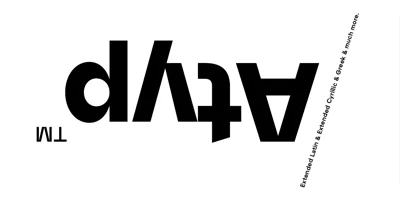
Atyp Font
Atyp Font excels in avant-garde design applications including experimental art galleries, independent music labels, creative agency branding, alternative fashion brands, underground event promotions, artistic publication layouts, innovative tech startups, non-conformist lifestyle brands, progressive cultural movements, and boundary-pushing advertising campaigns. This distinctive typeface brings artistic rebellion to unconventional projects.
What makes Atyp Font truly exciting is its deliberate departure from traditional typographic conventions with unique letterforms that challenge design expectations and create memorable visual impact. The font features intentionally irregular character shapes with artistic quirks and experimental elements that reflect creative freedom and non-conformist thinking. Its rebellious personality and artistic innovation make it perfect for brands embracing alternative culture, creative expression, and audiences who value originality over conventional design approaches.
The Atyp Font family typically includes Regular weight with potential stylistic alternates and experimental variations that enhance its unconventional character. These creative options provide designers with artistic flexibility while maintaining the font's distinctive non-conformist aesthetic and experimental spirit across various alternative applications and artistic contexts.
Whether you're developing experimental branding, creating artistic publications, or designing counter-culture campaigns, Atyp Font delivers the creative authenticity and artistic innovation that unconventional projects require. Its exceptional uniqueness and rebellious spirit make it invaluable for designers working with art collectives, alternative brands, and creative organizations requiring typography that celebrates artistic freedom, challenges conventional thinking, and connects with audiences who appreciate bold creativity and experimental design approaches.